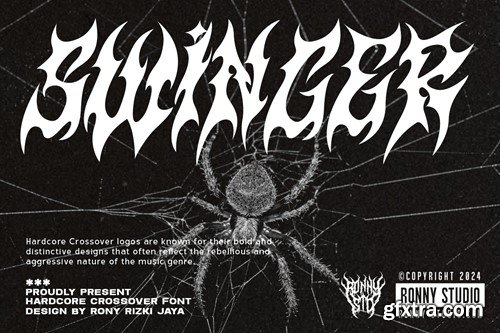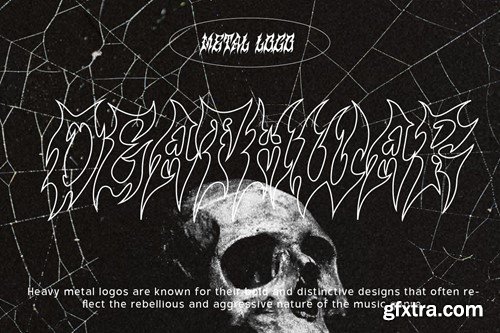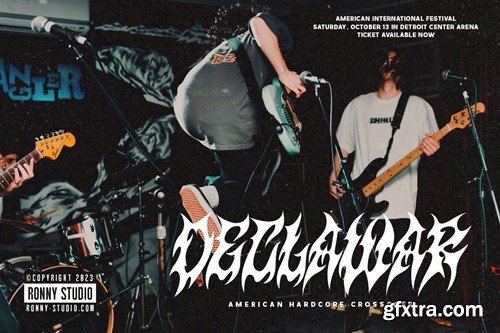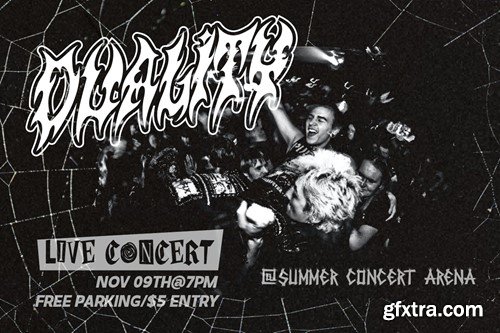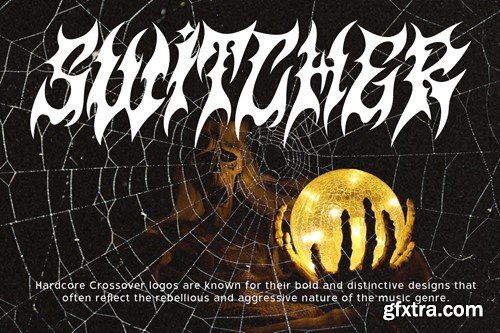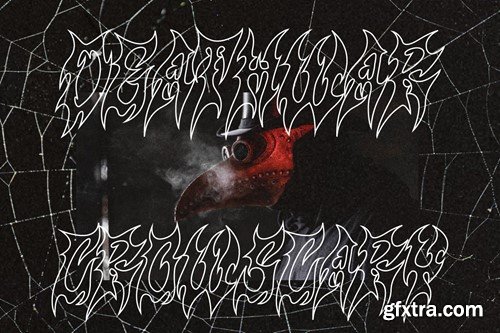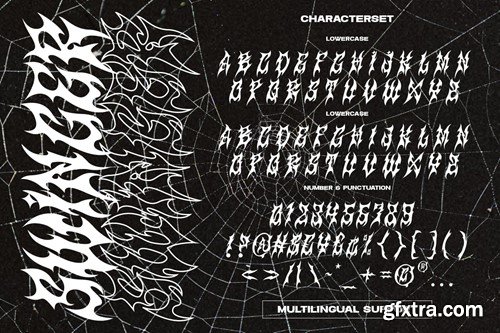
Swinger - Hardcore Crossover Font NGL4XC
Swinger - Hardcore Crossover Font
Swinger Font is a cool alternative for you to create Underground band logos or anything else easily. Using effects in the font will liven up the font and it will look cooler and fiercer. This font has a strong, aggressive and bold look, reflecting the aesthetics of the metal music genre itself. Files include : Features : Please contact us if you have any questions. Enjoy Crafting and thanks for supporting us! :) Thank you